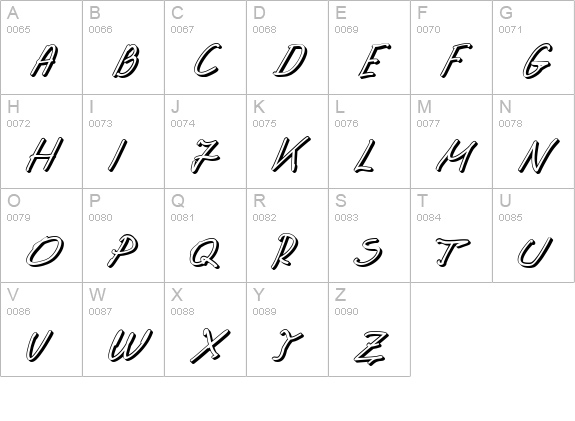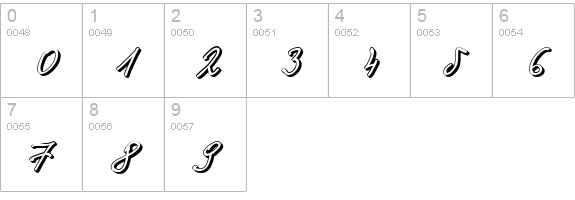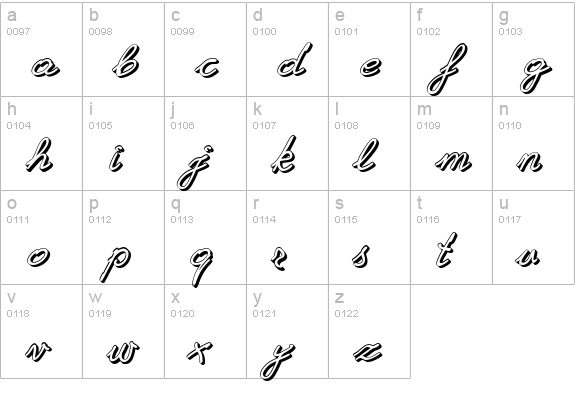
Grannys 3D Font Details
Grannys 3D font is a stunning and captivating typeface that brings a touch of vintage charm to your design projects. With its unique 3D effect, this font adds depth and dimension to any text, making it truly stand out. Designed with love and attention to detail, Grannys 3D font is perfect for a variety of applications, from logos and branding to posters and invitations. Its intricate curves and playful edges give it a nostalgic feel, reminiscent of handwritten letters from a bygone era. One of the best things about Grannys 3D font is that it is available for free. Yes, you read that right - this incredible font can be downloaded at no cost from FontsMarket.com. We believe that creativity should be accessible to all, and that is why we are thrilled to offer this font as a complimentary gift to designers, artists, and anyone who appreciates the beauty of typography. Whether you're working on a personal project or a professional endeavor, Grannys 3D font is sure to add a touch of elegance and character to your designs. Its versatility allows it to be paired with a variety of other fonts, creating endless possibilities for creative combinations. So why wait? Download Grannys 3D font today and embark on a typographic journey that will captivate and inspire. Let your imagination run wild as you experiment with this free font, and watch as your designs come to life with a touch of vintage charm. Remember, it's only a click away at FontsMarket.com.